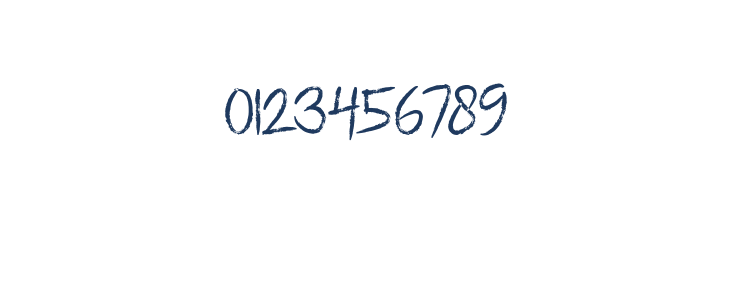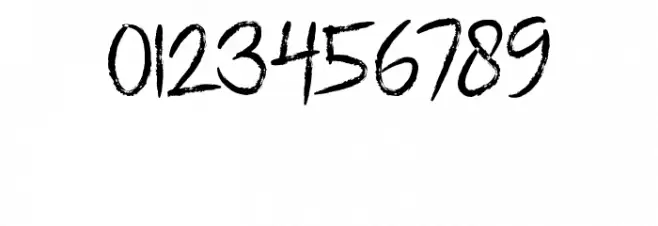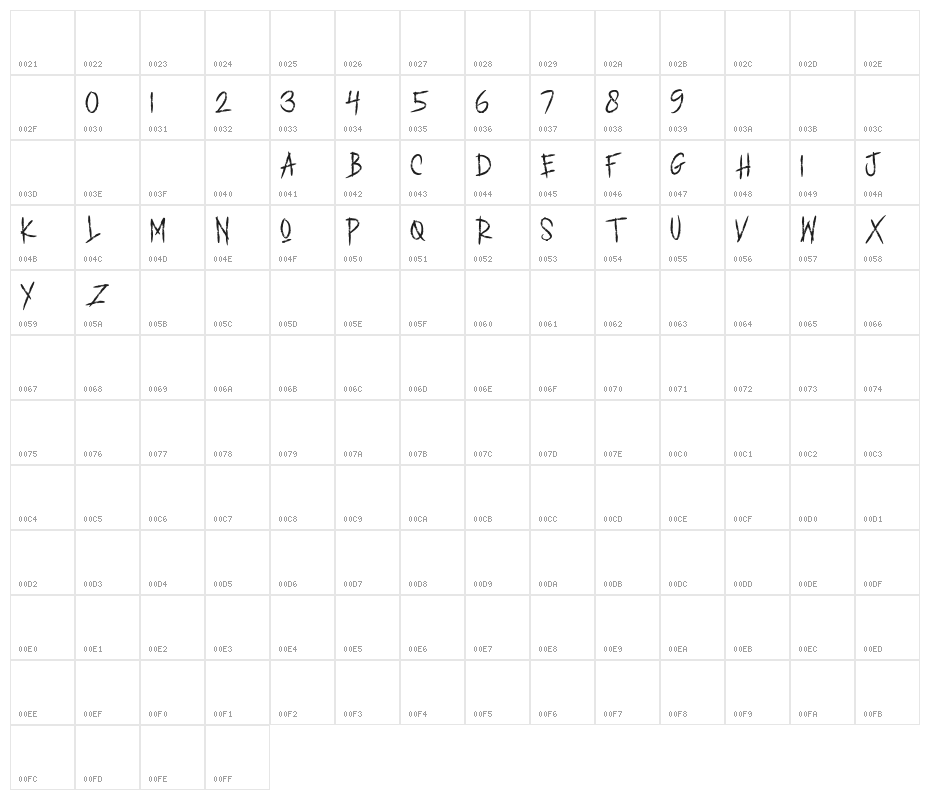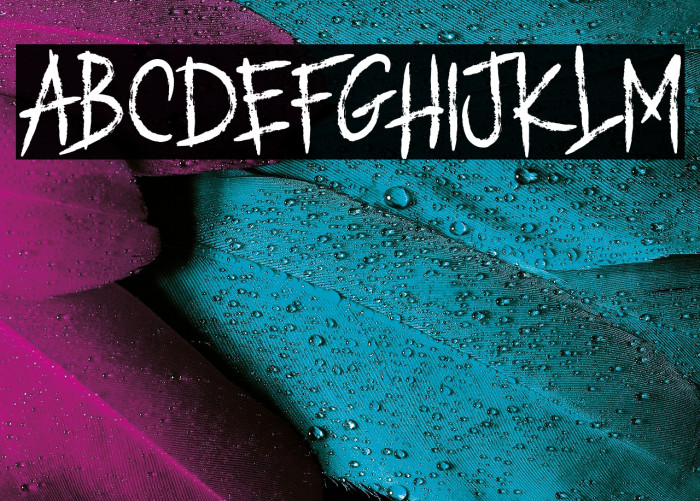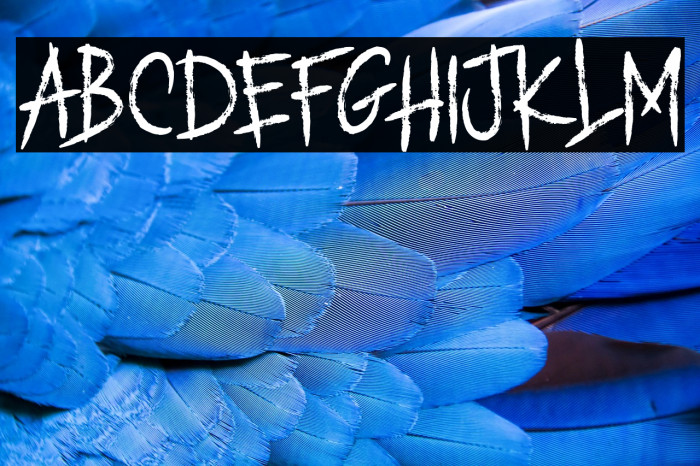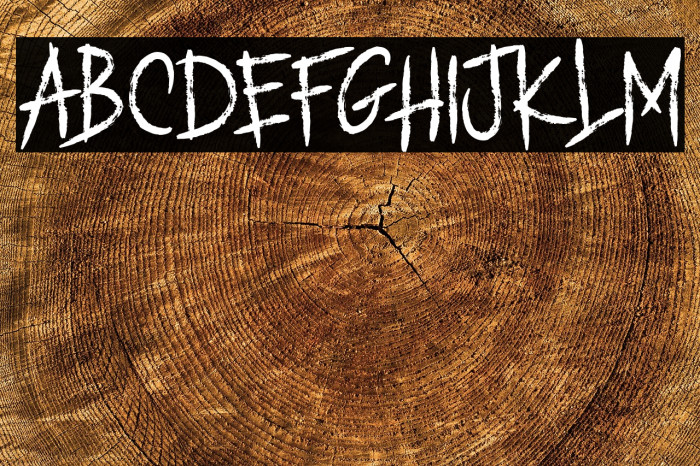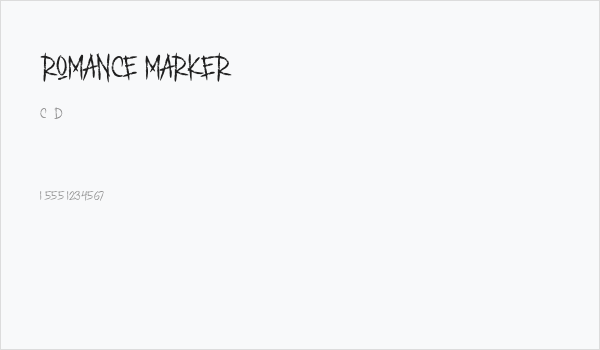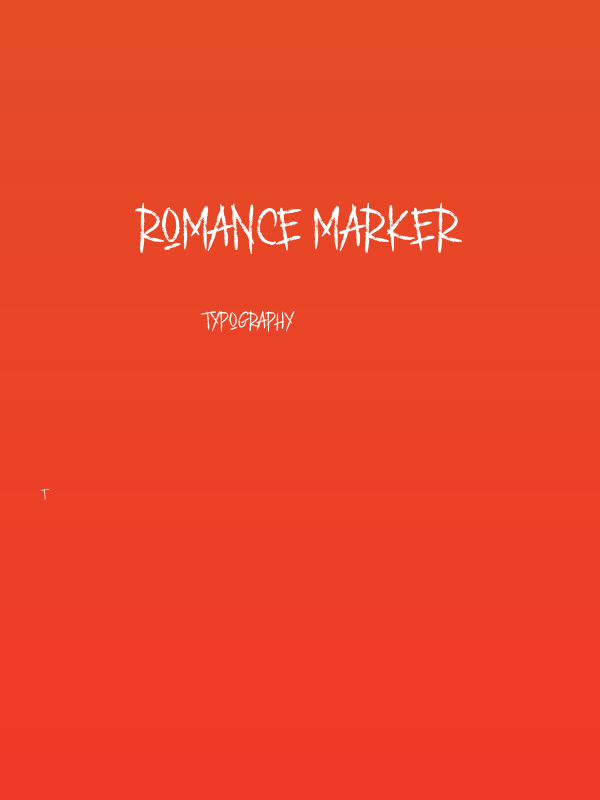
ROMANCE MARKER Font
ROMANCE MARKER Description
This font features a bold, expressive style with a hand-drawn appearance, reminiscent of marker strokes. The characters are irregular and dynamic, with varying stroke thicknesses that create a sense of movement and energy. The uppercase letters are tall and slightly narrow, while the numbers maintain a consistent style with the letters, adding to the cohesive look. The overall design is edgy and modern, making it suitable for projects that require a bold statement. The texture of the strokes gives it a raw, authentic feel, perfect for creative and artistic applications.
| Proposed Projects | Ideal for posters, album covers, graffiti art, and urban-themed designs. |